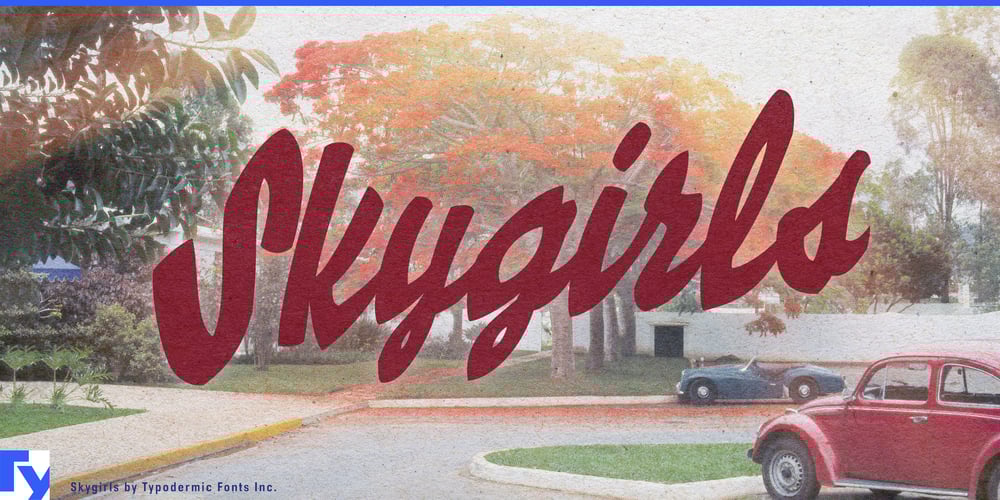
Skygirls
Skygirls font
Skygirls Font Family was designed by Ray Larabie and published by Typodermic. Skygirls contains 1 styles and family package options. Step into the exhilarating rush of the Roaring Twenties with Skygirls, a typeface that doesn’t just capture an era—it embodies the spirit of a generation reaching for the stars. This is a time machine, whisking your designs back to an age of boundless optimism and relentless progress.Skygirls is a tightly wound script that pulses with the energy of a city on the brink of transformation. Each character is a carefully crafted homage to the classic metal scripts of yesteryear—Herald, Signal, Hauser, Penflow, Veltro, Kurier, and Bison—reimagined for the modern designer who craves authenticity with a contemporary edge. The steep, upward angle of Skygirls isn’t just a design choice—it’s a statement of intent. It draws the eye skyward, mirroring the aspirations of a society reaching for new heights. Set your text on an upward slope, and watch as your message takes flight, soaring above the mundane and capturing attention with the same urgency as a breaking news headline.But Skygirls is more than just nostalgic charm. Its seamlessly joined letters create a sense of momentum that’s perfectly in tune with today’s fast-paced world. In logo design, it lends a touch of timeless elegance. In advertising, it commands attention with the authority of a vintage billboard. For editorial design, it adds a dash of Jazz Age glamour to any layout. What truly sets Skygirls apart is its linguistic versatility. Supporting a vast array of Latin-based European writing systems, from Afaan Oromo to Zuni, this typeface ensures your message maintains its vintage allure across cultures. It’s not just crossing language barriers—it’s breaking them with the same audacity as the groundbreaking women of the 1920s.Choose Skygirls when you want your typography to do more than communicate—when you want it to transport, to inspire, to evoke the excitement of an era when anything seemed possible. It’s a statement, a celebration of progress, a typographic tribute to those who dared to dream big. With Skygirls, your message doesn’t just speak—it sings, it dances, it takes to the sky like a pioneering aviatrix. Are you ready to let your typography take flight?